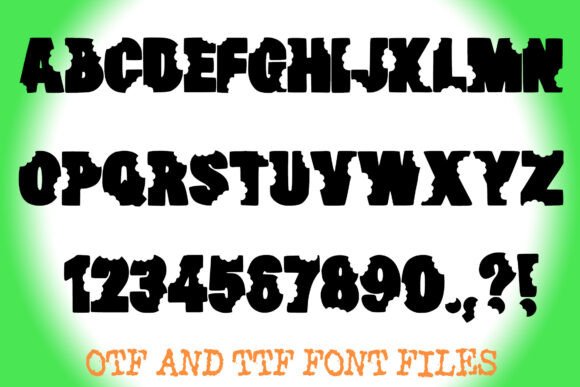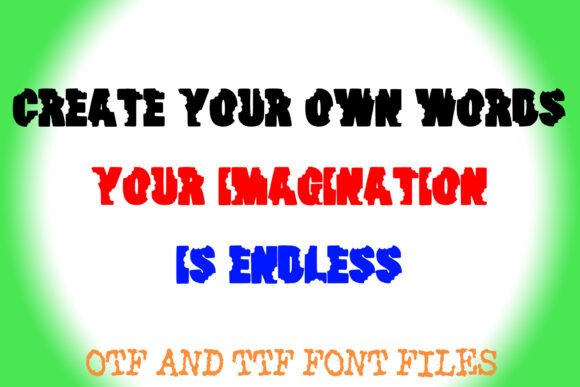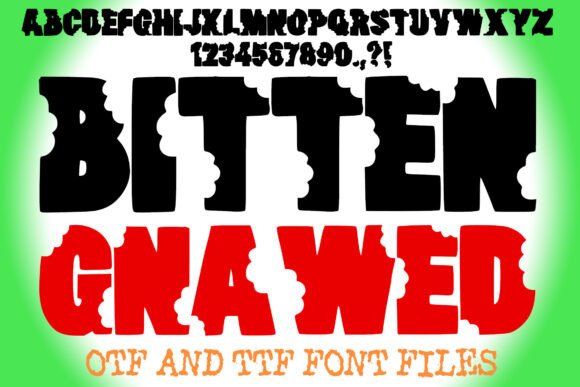
Unleash the Wild Side of Your Designs with Bitten Gnawed Font
Are you tired of using the same old fonts in your designs? Do you want to add a touch of playfulness and edginess to your projects? Look no further than the Bitten Gnawed Font, a bold and chunky display typeface that’s sure to make your designs stand out. This unique font features a chewed, eaten, or eroded look that’s perfect for a wide range of creative projects, from Halloween designs and spooky posters to horror movie titles, kids’ crafts, and fun digital artwork.
A Font that’s Truly One-of-a-Kind
The Bitten Gnawed Font is a true original, with a distinctive look that’s sure to grab attention. Its bold, chunky letters look like they’ve been bitten into, gnawed on, or eroded by some unknown force. This font is perfect for designers and crafters who want to add a bit of fun and fright to their projects. Whether you’re creating Halloween invitations, monster-themed crafts, eerie titles, or playful branding, the Bitten Gnawed Font is the perfect choice.
The Bitten Gnawed Font is incredibly versatile, making it perfect for a wide range of projects. Here are just a few ideas to get you started:
- Halloween designs: Create spooky posters, invitations, and decorations that are sure to thrill.
- Horror movie titles: Add a touch of horror to your movie titles and posters.
- Kids’ crafts: Create fun and playful crafts for kids, such as monster-themed artwork and decorations.
- Digital artwork: Add a bit of edginess to your digital artwork, such as illustrations and graphics.
- Playful branding: Create fun and playful branding for your business or product.
Comprehensive Character Set
The Bitten Gnawed Font features a comprehensive character set, including:
- Uppercase letters: Perfect for titles and headings.
- Numbers: Great for adding a touch of playfulness to your designs.
- Punctuation: Essential for creating complete and professional-looking designs.
Why Choose the Bitten Gnawed Font?
So why choose the Bitten Gnawed Font for your next project? Here are just a few reasons:
- Unique look: The Bitten Gnawed Font has a truly unique look that’s sure to grab attention.
- Playful and edgy: This font adds a bit of playfulness and edginess to any design.
- Versatile: Perfect for a wide range of projects, from Halloween designs to digital artwork.
If you’re looking for a font that’s truly one-of-a-kind, look no further than the Bitten Gnawed Font. With its bold, chunky letters and chewed, eaten, or eroded look, this font is perfect for designers and crafters who want to add a bit of fun and fright to their projects. Whether you’re creating Halloween designs, horror movie titles, kids’ crafts, or digital artwork, the Bitten Gnawed Font is the perfect choice. So why wait? Download the Bitten Gnawed Font today and unleash the wild side of your designs!